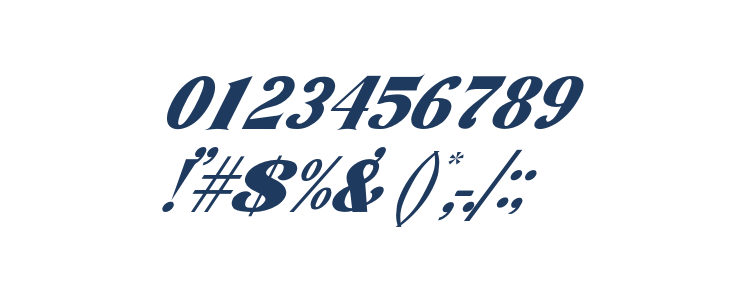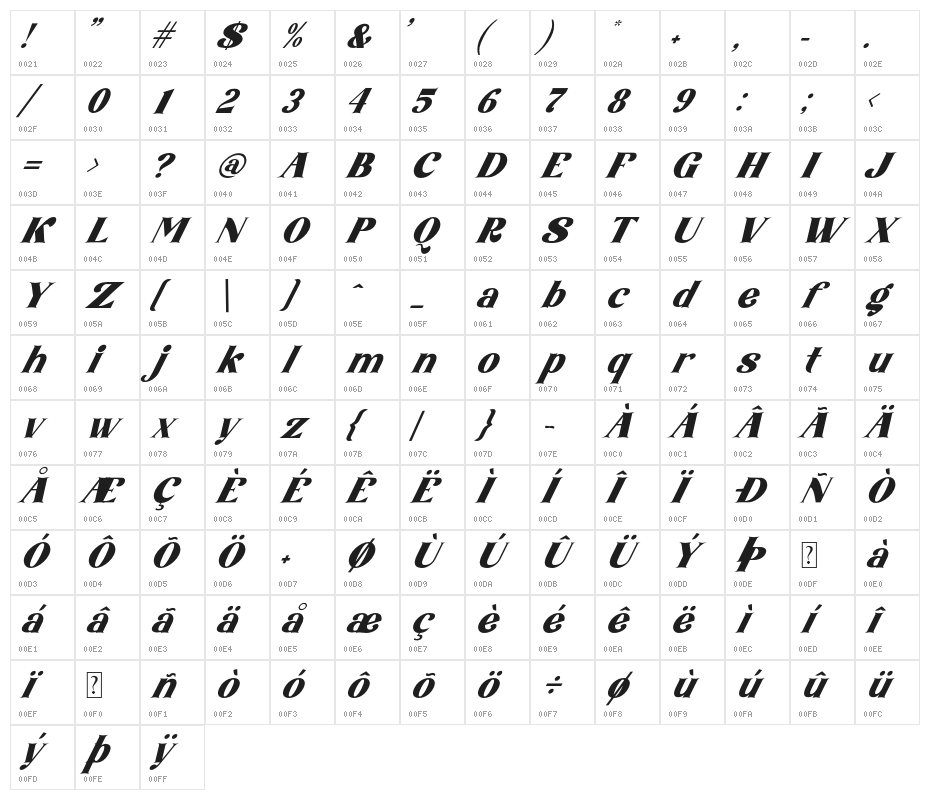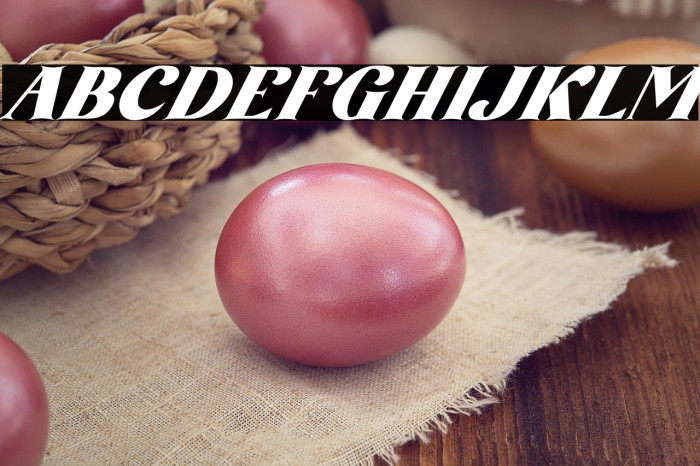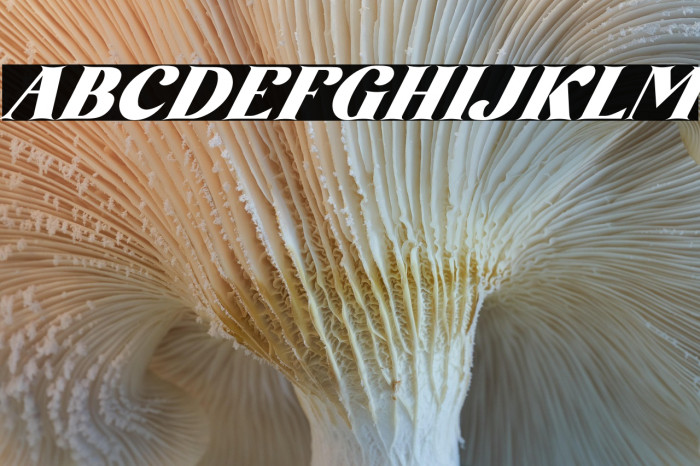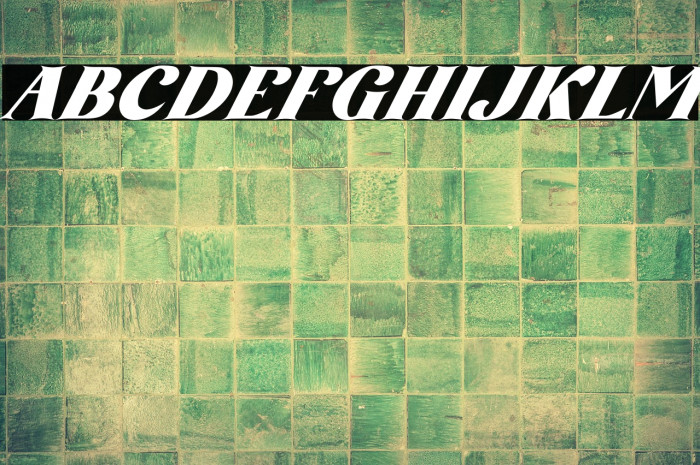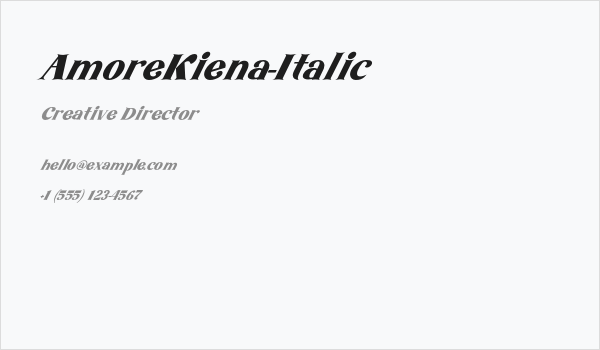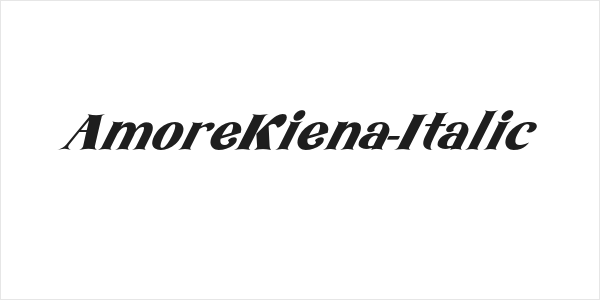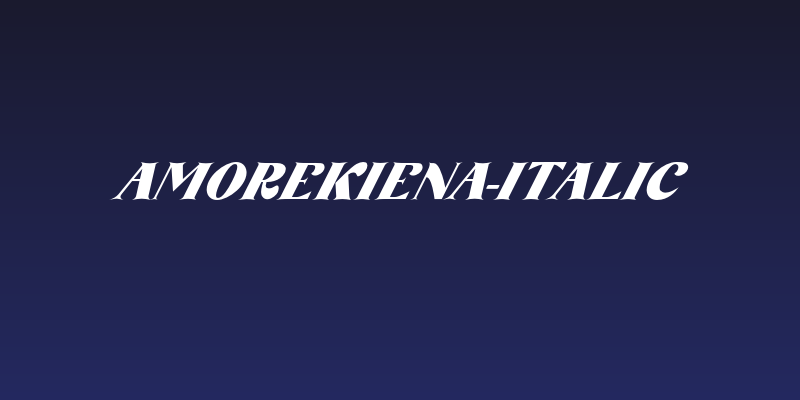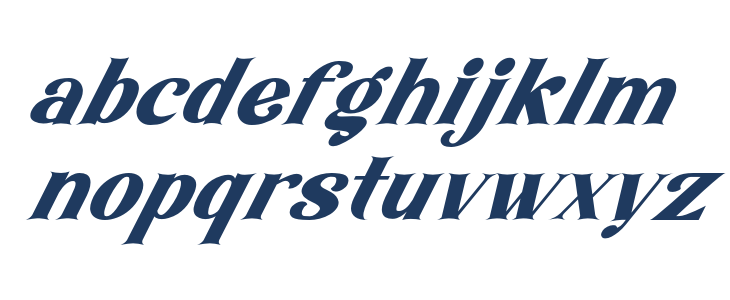
AmoreKiena-Italic Font
AmoreKiena-Italic Description
This font features a bold and dynamic italic style, characterized by its strong diagonal emphasis and thick strokes. The letters are slanted, giving a sense of movement and urgency. The uppercase letters are particularly striking, with sharp serifs and a pronounced contrast between thick and thin lines. The lowercase letters maintain the same boldness, with a slightly more rounded appearance. The numerals are equally bold, ensuring they stand out in any context. Special characters are designed to match the overall aesthetic, with a consistent slant and weight.